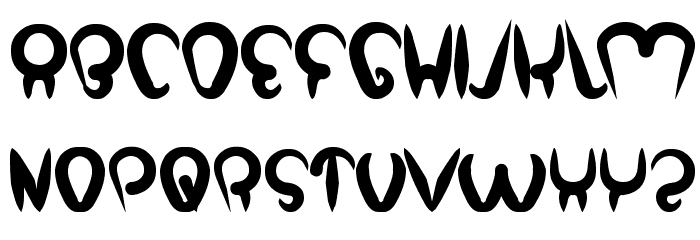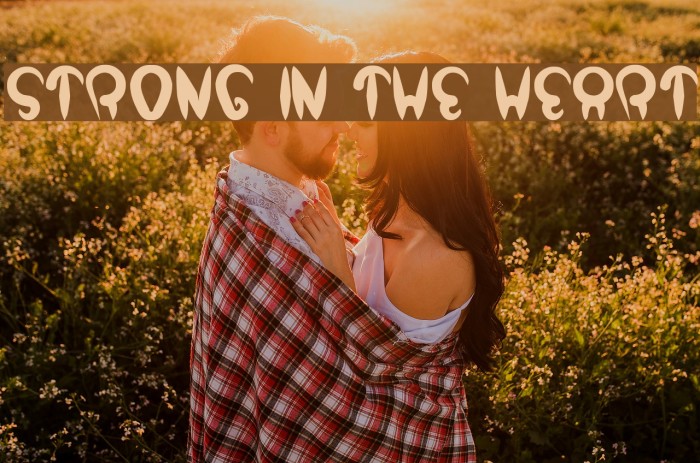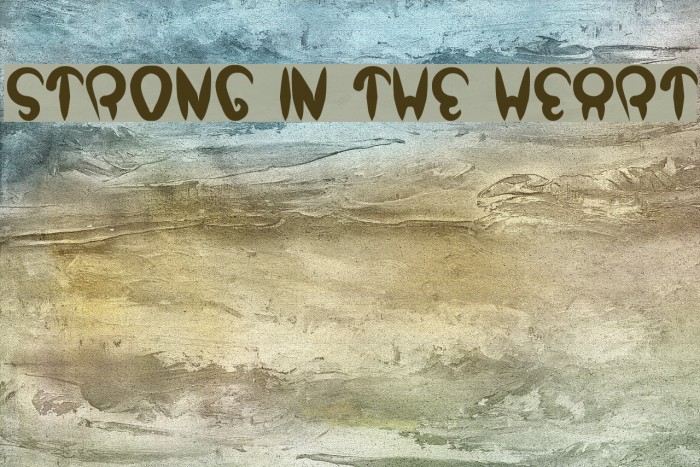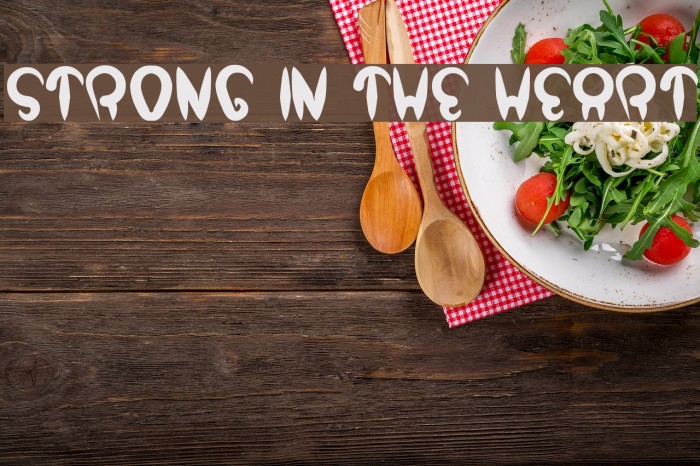
strong in the heart Font
This font features a bold and artistic design with unique, exaggerated curves and sharp points that create a striking visual impact. The characters are highly stylized, with a mix of thick and thin strokes that give a dynamic and energetic feel. The uppercase letters are particularly distinctive, with some characters having elongated tails or horns, adding to the font's dramatic appearance. The overall design is reminiscent of tribal or fantasy themes, making it suitable for creative and unconventional projects.
A bold, artistic font with exaggerated curves and sharp points, ideal for creative projects.
- Proposed Projects: This font is perfect for fantasy-themed posters, album covers, video game titles, or any project that requires a bold and artistic touch.